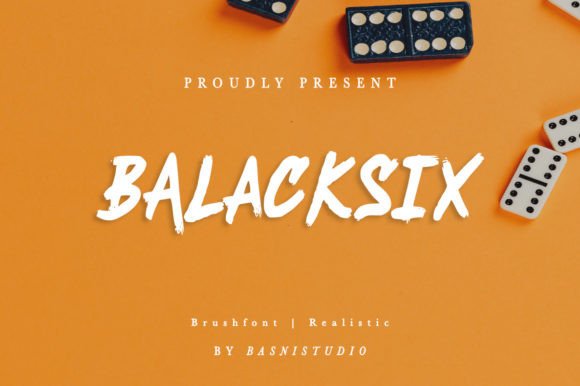
The Power of Blacksix: Unleashing Boldness in Your Designs
I’ll never forget the time I was working on a project for a client who wanted a bold, eye-catching logo that would make their brand stand out. I had been searching for the perfect font for hours, but nothing seemed quite right. That was when I stumbled upon Blacksix, a bold and striking all-caps brush font that instantly caught my attention. Its powerful strokes and edgy design added a touch of fierceness to my project, and I knew I had found the one.
As a designer, I’m always on the lookout for fonts that can help me create stunning visuals. Here’s what I love about Blacksix:
- ✨ Bold and attention-grabbing: Blacksix is perfect for creating headlines, logos, and posters that demand attention.
- ✅ Edgy design: The font’s rough, brush-like texture adds a touch of grit and urban feel to any project.
- 💯 Highly versatile: Blacksix works well in a variety of contexts, from bold titles to social media graphics.
Of course, no font is perfect, and Blacksix has a few quirks:
- 🤔 Limited use in body text: Due to its bold and edgy design, Blacksix may not be the best choice for body text or paragraphs.
- ⚠️ Some glyphs may not be suitable for all languages: As with any font, it’s essential to test Blacksix with your specific language and character set.
The Story Behind Blacksix
Blacksix was designed by a team of creatives who wanted to create a font that would inspire boldness and creativity. The font’s edgy design and powerful strokes were inspired by urban landscapes and rebellious street art. The designers aimed to create a font that would be perfect for headlines, logos, and posters that demand attention.
| What is Blacksix? | Blacksix is a bold and striking all-caps brush font designed for creating attention-grabbing headlines, logos, and posters. |
| Is Blacksix suitable for body text? | No, Blacksix is not recommended for body text due to its bold and edgy design. |